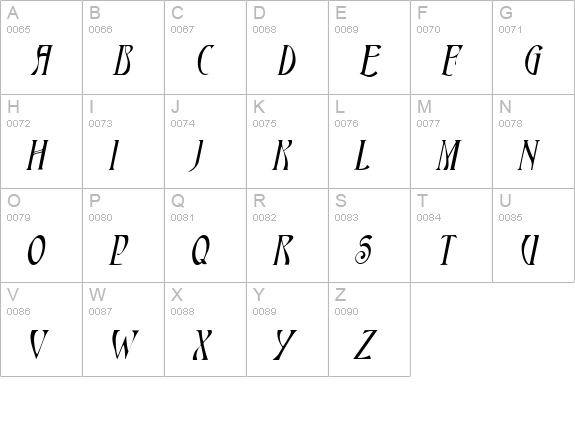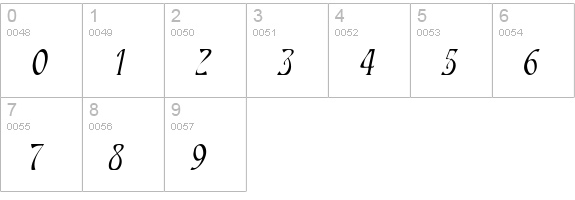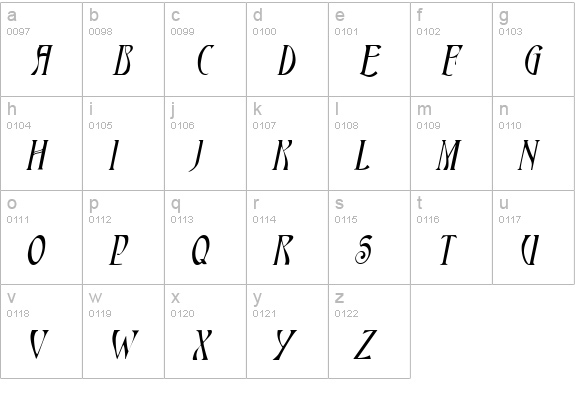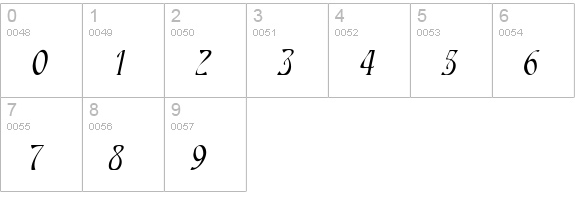
HardinCaps Italic is a distinctive, italic variant in the HardinCaps typeface family \xE2\x80\x94 well suited to design and typography projects.
Introducing HardinCaps Italic, a captivating and versatile font that exudes elegance and sophistication. With its unique and refined italic style, this font adds a touch of class to any project. HardinCaps Italic features beautifully crafted uppercase letters that are artistically inclined, creating a sense of movement and fluidity. Each character showcases delicate curves and stylish serifs, making it a perfect choice for designs that require a touch of finesse. This font is designed to make a statement, whether used for logo design, headlines, or invitations. Its sleek and modern appearance effortlessly captures attention and communicates a sense of professionalism. The best part? HardinCaps Italic is free! You can easily download this exquisite font from FontsMarket.com, one of the most reputable sources for high-quality fonts. By offering this font free of charge, it ensures that creative individuals from all walks of life can access and utilize its beauty. So, if you're looking to enhance your design projects with a font that combines elegance, versatility, and affordability, look no further than HardinCaps Italic. Download it today from FontsMarket.com and unlock a world of possibilities for your creative endeavors.